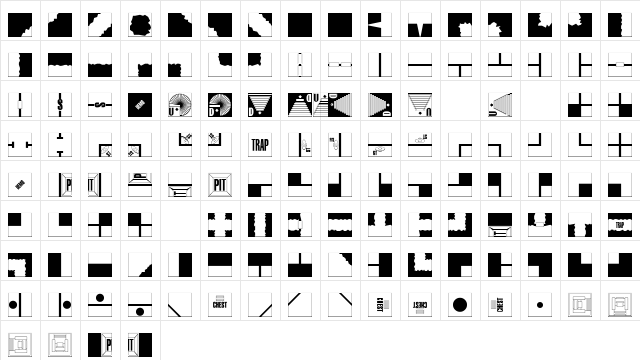
Dungeoneer Regular Font Preview
Dungeoneer Regular
Design Context for Dungeoneer Typeface
Dungeoneer is a composed and adaptable typeface that performs quietly and consistently across a wide range of design contexts.